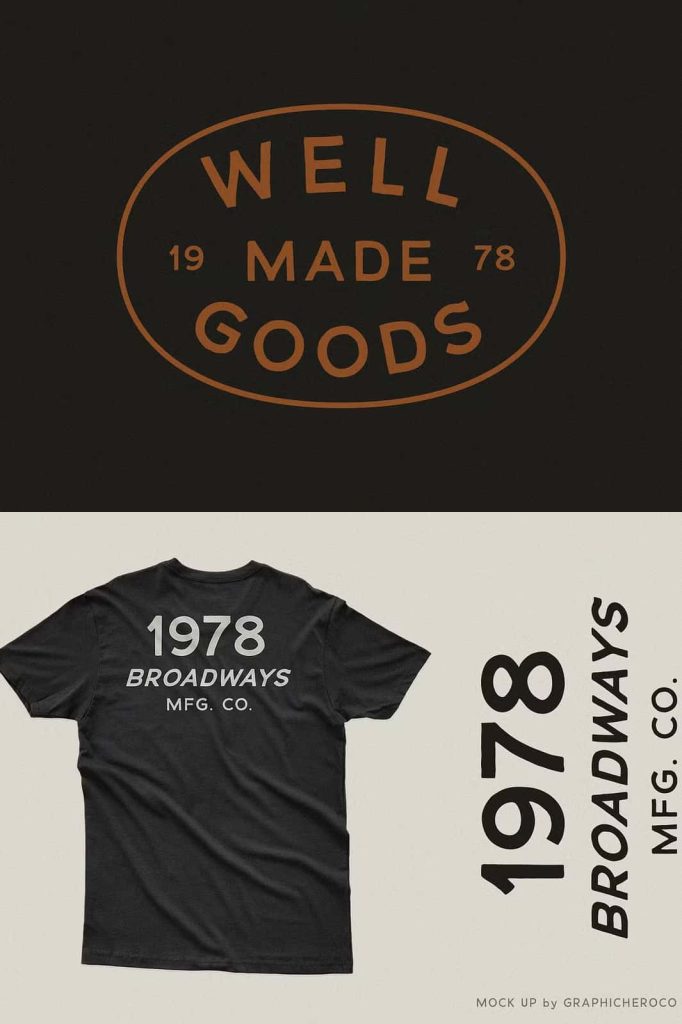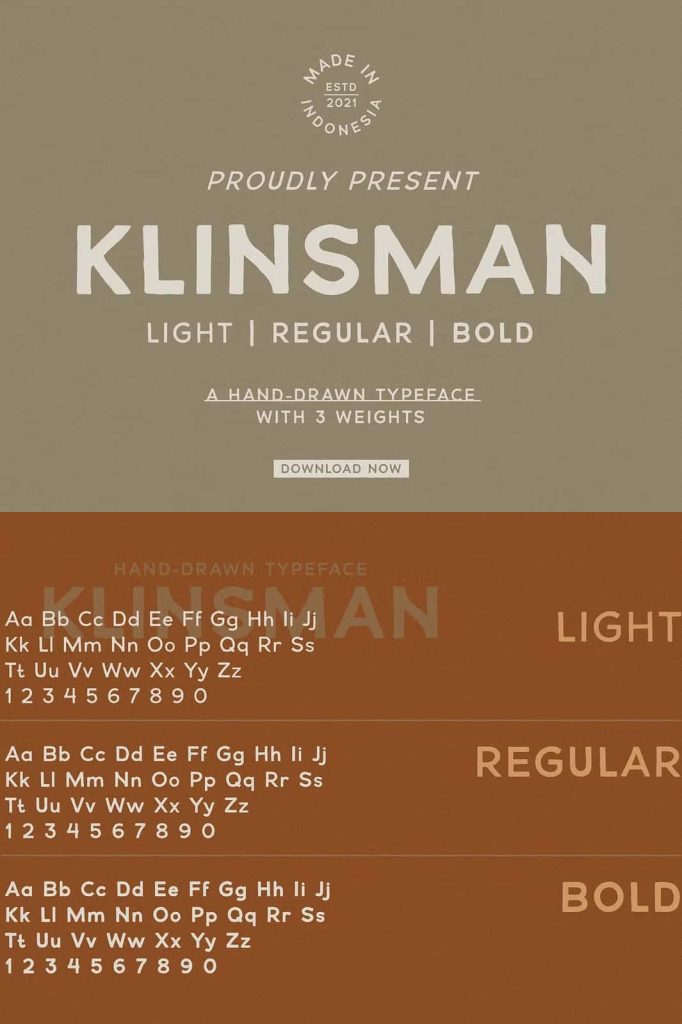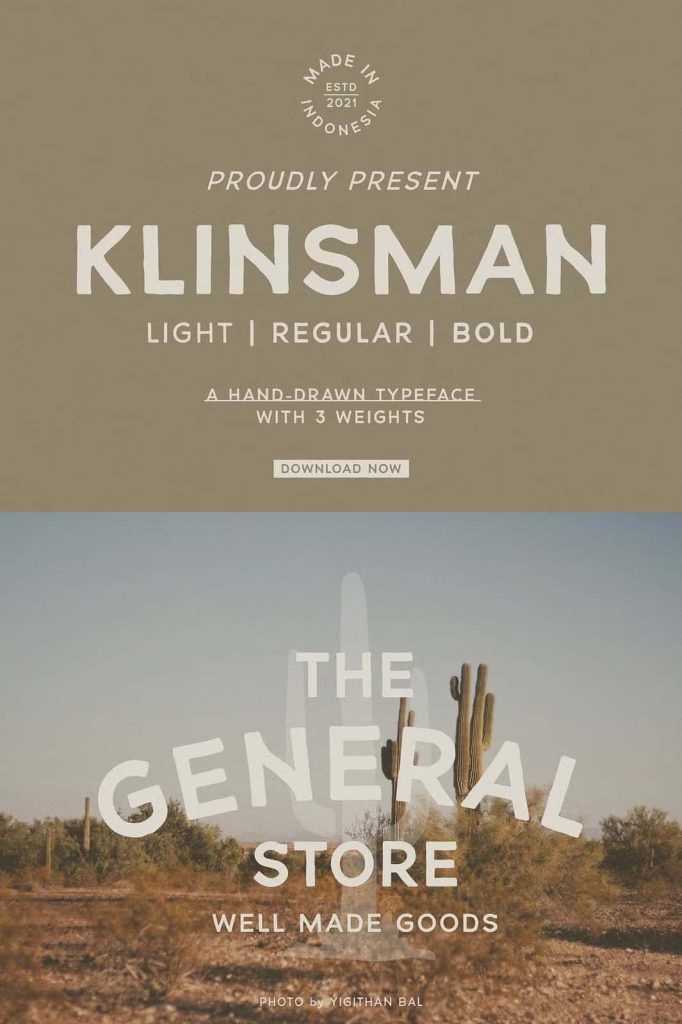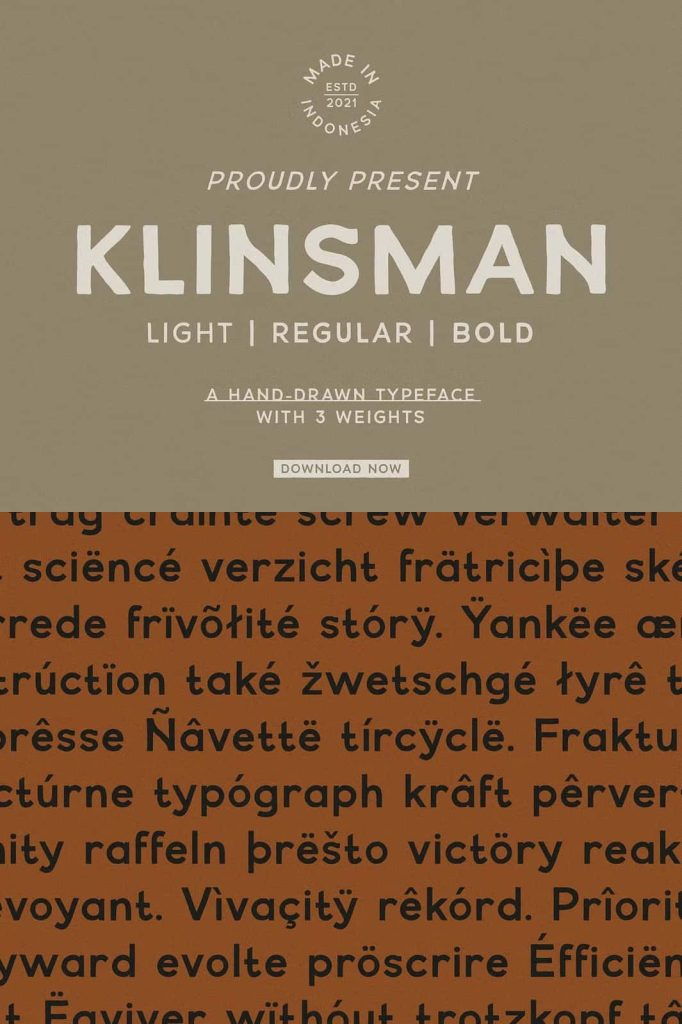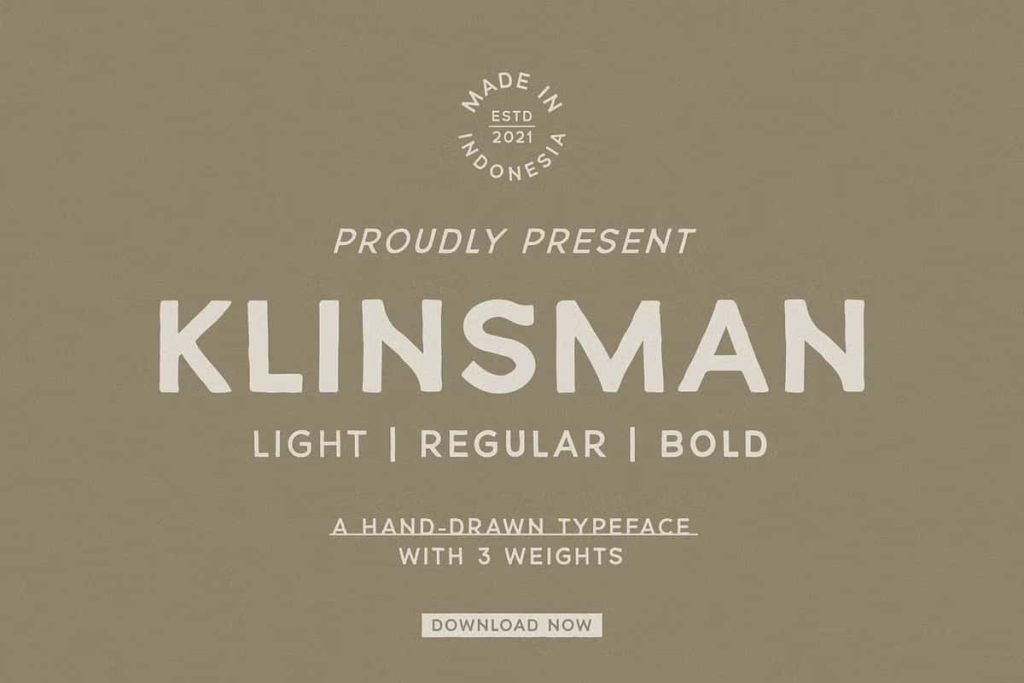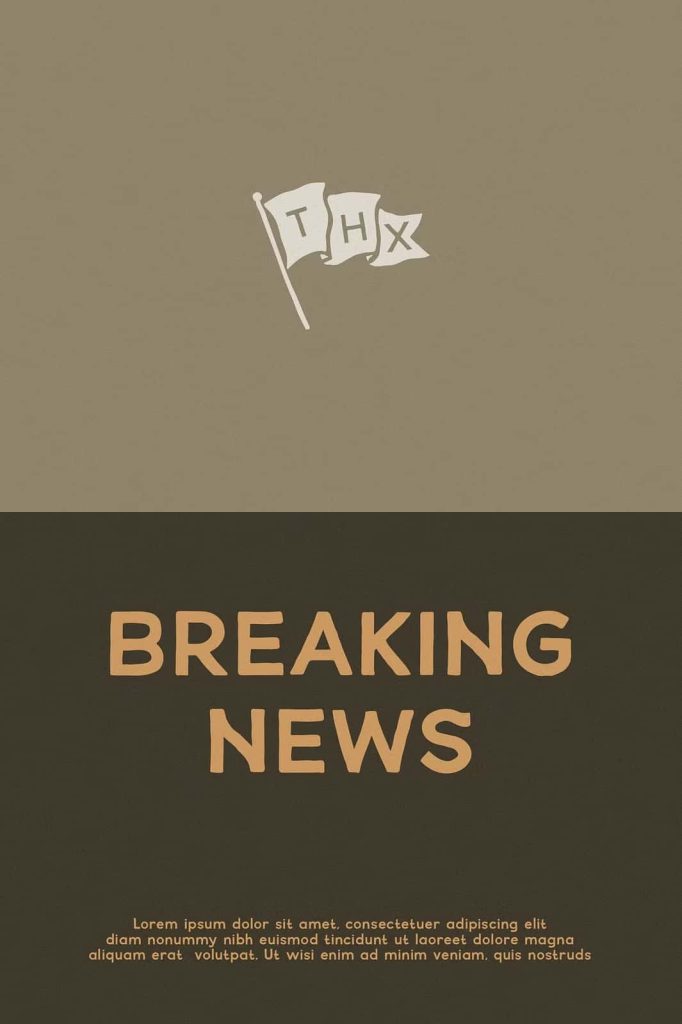
KLINSMAN Vintage Sans Serif Font for Classic Branding and Retro Typography
KLINSMAN is a distinctive vintage sans serif font that combines the timeless influence of classic European typography with the warmth of handcrafted lettering. Inspired by the iconic Akzidenz Grotesk style, KLINSMAN introduces subtle hand-drawn details that give every character a unique personality while preserving the clean structure that designers appreciate in traditional sans serif typefaces. The result is a font that feels both familiar and original, making it an excellent choice for creative projects that demand authenticity, versatility, and vintage appeal.
Designed with three versatile weights—Light, Regular, and Bold—KLINSMAN adapts effortlessly to a wide range of design applications. Whether you’re creating a memorable brand identity, designing retro-inspired logos, developing product packaging, or producing eye-catching apparel graphics, this font family delivers a balanced combination of classic typography and handcrafted character. Its timeless design allows it to complement both minimalist layouts and richly detailed vintage compositions.
Inspired by the Timeless Style of Akzidenz Grotesk
KLINSMAN draws inspiration from one of the most influential sans serif typefaces in design history while introducing its own handcrafted identity. Instead of simply replicating a traditional grotesque font, KLINSMAN reinterprets the style with subtle imperfections that create a warmer and more approachable appearance.
The carefully balanced letterforms preserve the clarity and readability expected from a professional sans serif font while incorporating organic details that prevent the typography from feeling overly mechanical. This combination makes KLINSMAN suitable for designers who appreciate the heritage of classic typography but also want a font with a distinctive handcrafted personality.
Hand-Drawn Character with Vintage Appeal
One of the defining characteristics of KLINSMAN is its hand-drawn construction. Every letter has been thoughtfully refined to include subtle irregularities that replicate the charm of traditional sign painting and handcrafted lettering. These small details introduce texture and authenticity without compromising readability or professionalism.
The vintage aesthetic allows KLINSMAN to evoke nostalgia while remaining versatile enough for contemporary branding. Whether used for heritage-inspired designs or modern creative projects with retro influences, the font provides an authentic visual voice that stands out from standard digital typefaces.
Key Features
- Vintage sans serif font inspired by Akzidenz Grotesk
- Hand-drawn letterforms with authentic handcrafted details
- Includes three font weights: Light, Regular, and Bold
- Excellent readability across display and branding applications
- Perfect for logos, labels, apparel, and packaging
- Suitable for vintage, retro, and industrial-inspired designs
- Works seamlessly in print and digital media
- Professional typography with timeless visual appeal
Three Font Weights for Greater Design Flexibility
KLINSMAN includes three carefully balanced weights that allow designers to build complete typography systems with ease. Each weight maintains the same handcrafted personality while offering different levels of visual emphasis for headlines, subheadings, branding elements, and supporting text.
- Light: Perfect for elegant layouts, minimalist branding, and refined editorial compositions.
- Regular: An ideal all-purpose weight that performs beautifully across logos, packaging, websites, and promotional materials.
- Bold: Designed for strong headlines, impactful signage, apparel graphics, and attention-grabbing marketing campaigns.
The consistent design across all three weights makes it easy to create visually balanced layouts while maintaining a cohesive brand identity.
Create Memorable Vintage Branding
Typography plays a vital role in building recognizable brands, and KLINSMAN offers the authentic personality needed to create lasting impressions. Its handcrafted vintage style communicates quality, craftsmanship, and tradition, making it an excellent choice for businesses seeking a timeless identity.
The font performs exceptionally well for coffee shops, breweries, restaurants, barbershops, outdoor brands, motorcycle companies, artisan workshops, craft product labels, lifestyle brands, and creative agencies. Whether designing a logo from scratch or refreshing an existing identity, KLINSMAN helps brands project confidence and authenticity.
Perfect for Logos, Labels, and Packaging
KLINSMAN shines in logo design thanks to its balanced proportions and handcrafted appearance. The clean sans serif structure keeps logos professional, while the subtle imperfections add enough character to make them memorable.
The font also works beautifully on labels and packaging for handcrafted products, gourmet foods, beverages, candles, cosmetics, apparel, and premium merchandise. Its vintage influence enhances product presentation while reinforcing the perception of quality and authenticity.
Whether you’re designing vintage logos, product packaging, apparel graphics, labels, editorial layouts, signage, or promotional materials, KLINSMAN delivers professional quality with timeless retro appeal. If you’re looking for a handcrafted sans serif font that combines classic inspiration with modern versatility, KLINSMAN is an outstanding addition to your typography library.